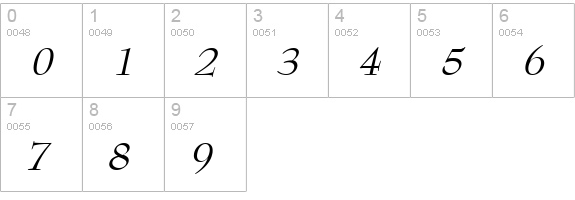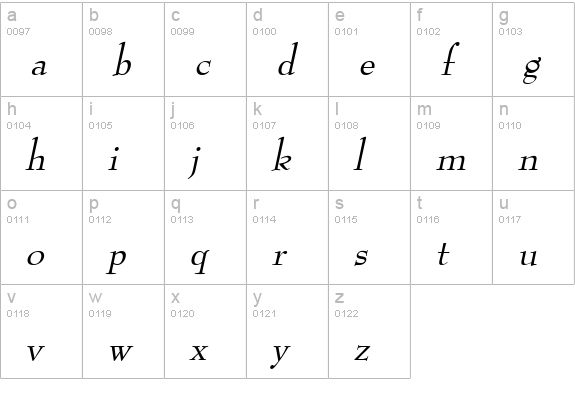
Bernhart Italic is a distinctive, italic variant in the Bernhart typeface family \xE2\x80\x94 well suited to design and typography projects.
Bernhart Italic is a stunning and sophisticated font that exudes elegance and charm. With its graceful curves and flowing lines, this typeface is perfect for adding a touch of class to any design project. Whether you're creating invitations, posters, or branding materials, Bernhart Italic is sure to make a statement. The best part? Bernhart Italic is completely free to download at FontsMarket.com. Yes, you read that right - you can elevate your designs with this exquisite font at no cost at all. Don't miss out on this amazing opportunity to enhance your projects with the timeless beauty of Bernhart Italic. Download it now and start creating stunning designs that stand out from the rest.